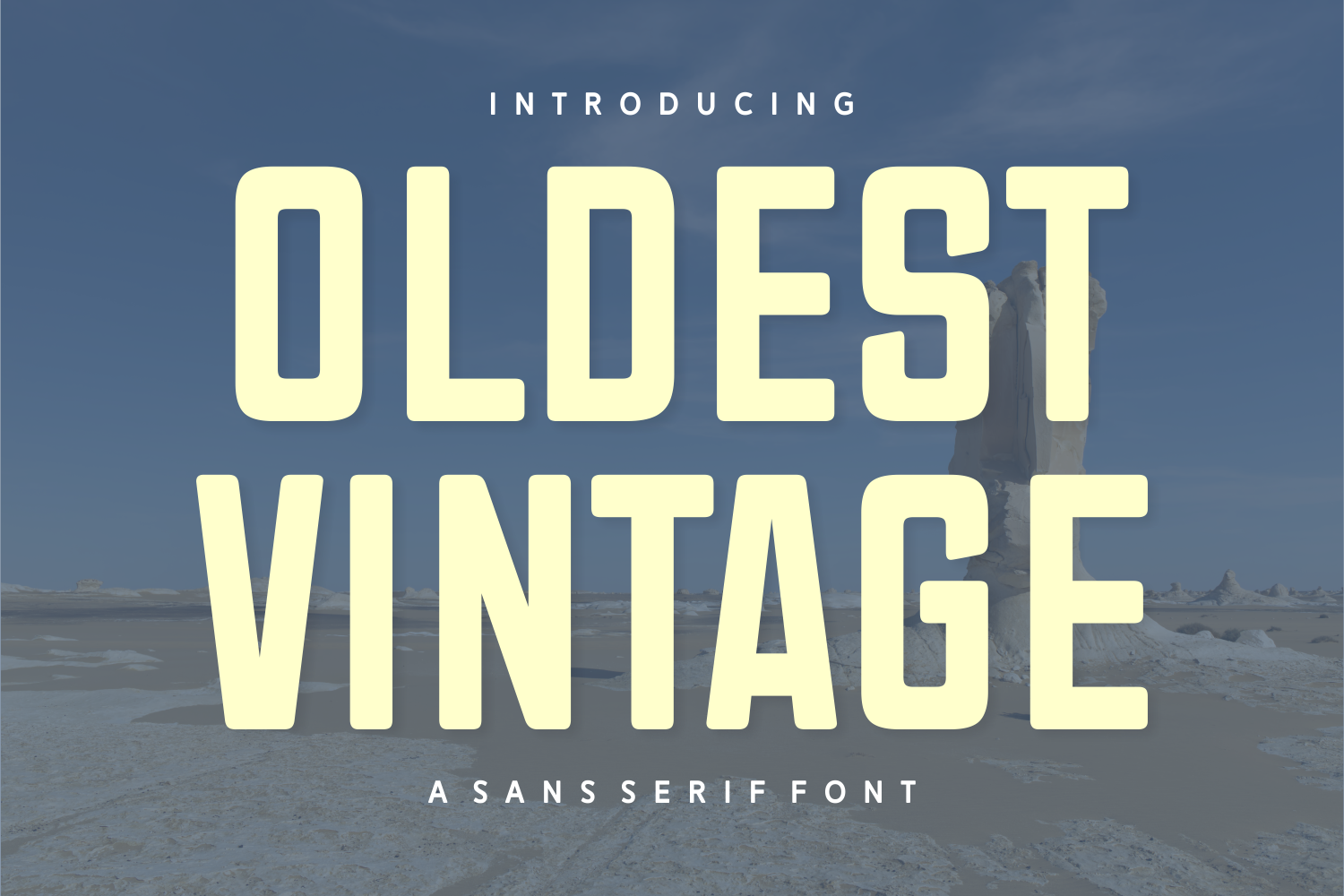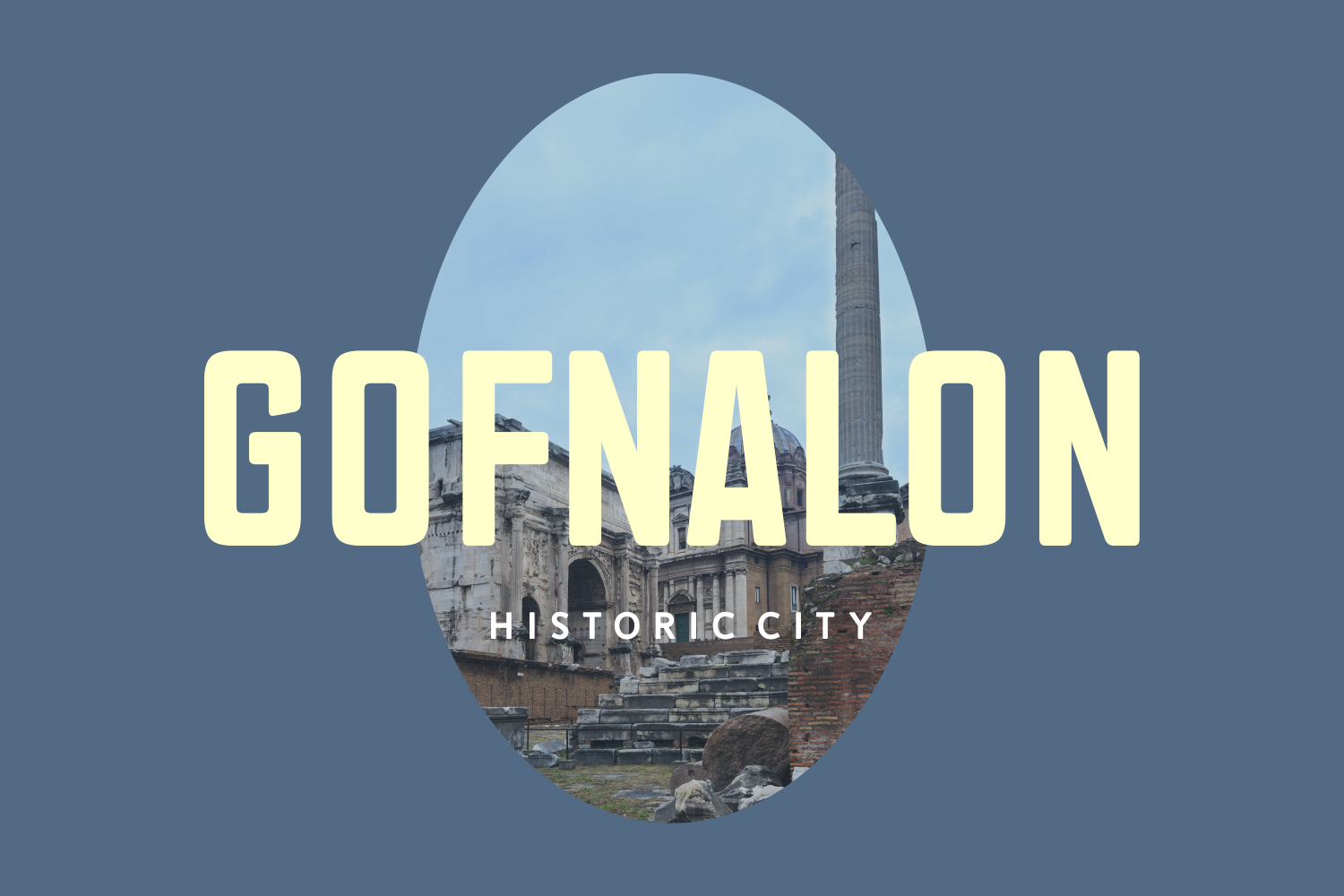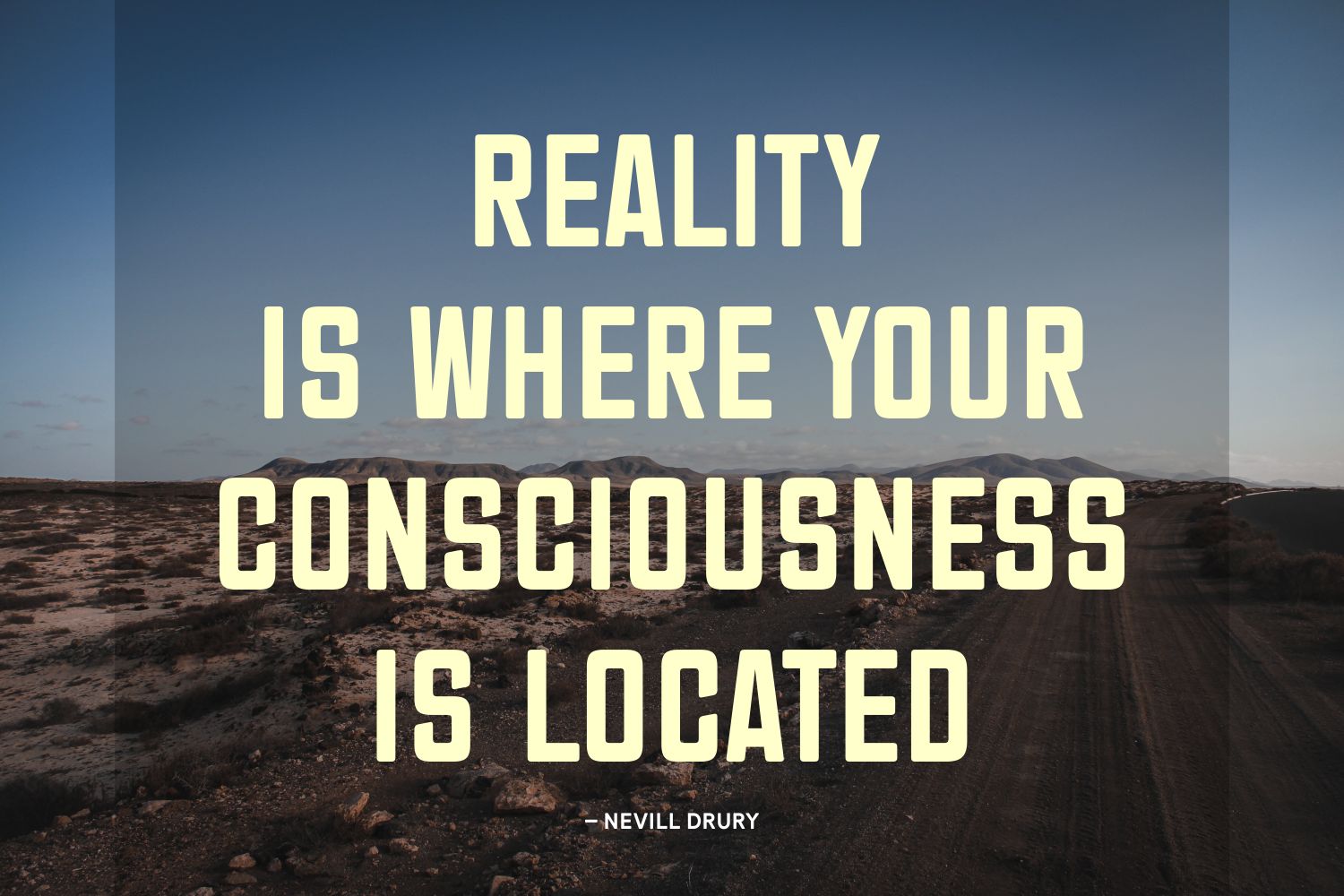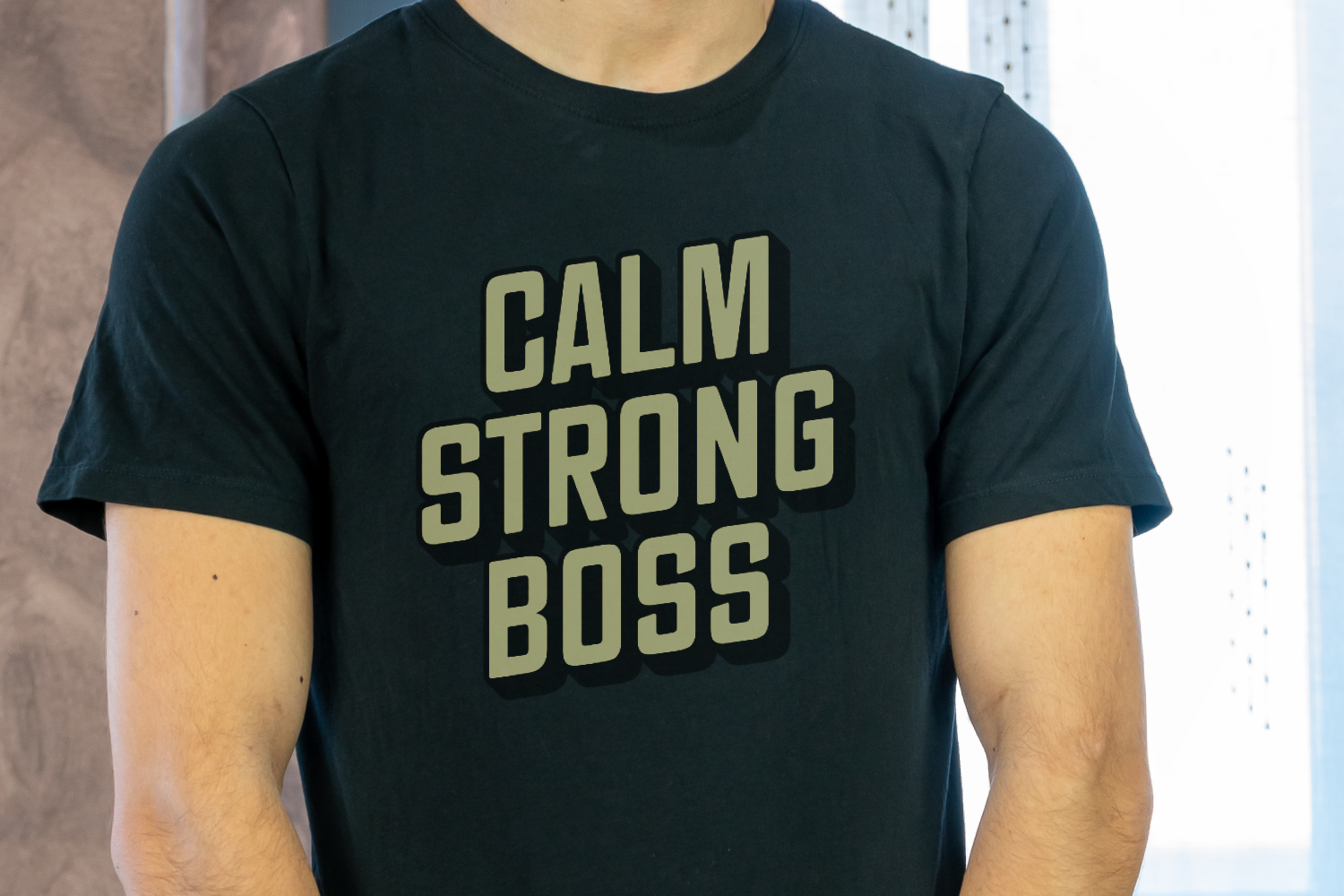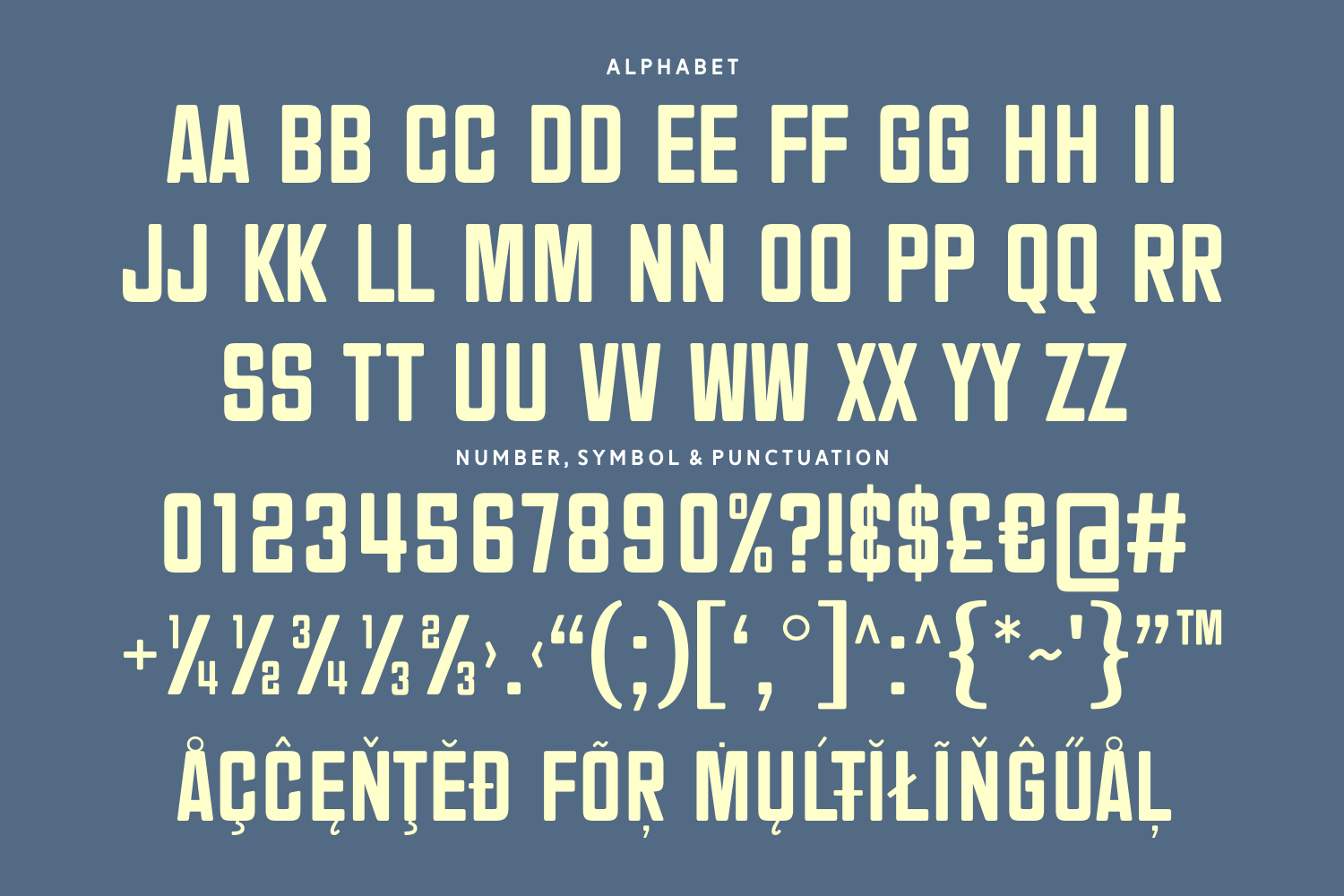
Oldest Vintage
Oldest Vintage is a bold sans serif typeface with clean, squared edges and a nostalgic presence. Its sturdy shapes and straightforward geometry make it ideal for posters, outdoor signage, and vintage-inspired branding with a contemporary edge.